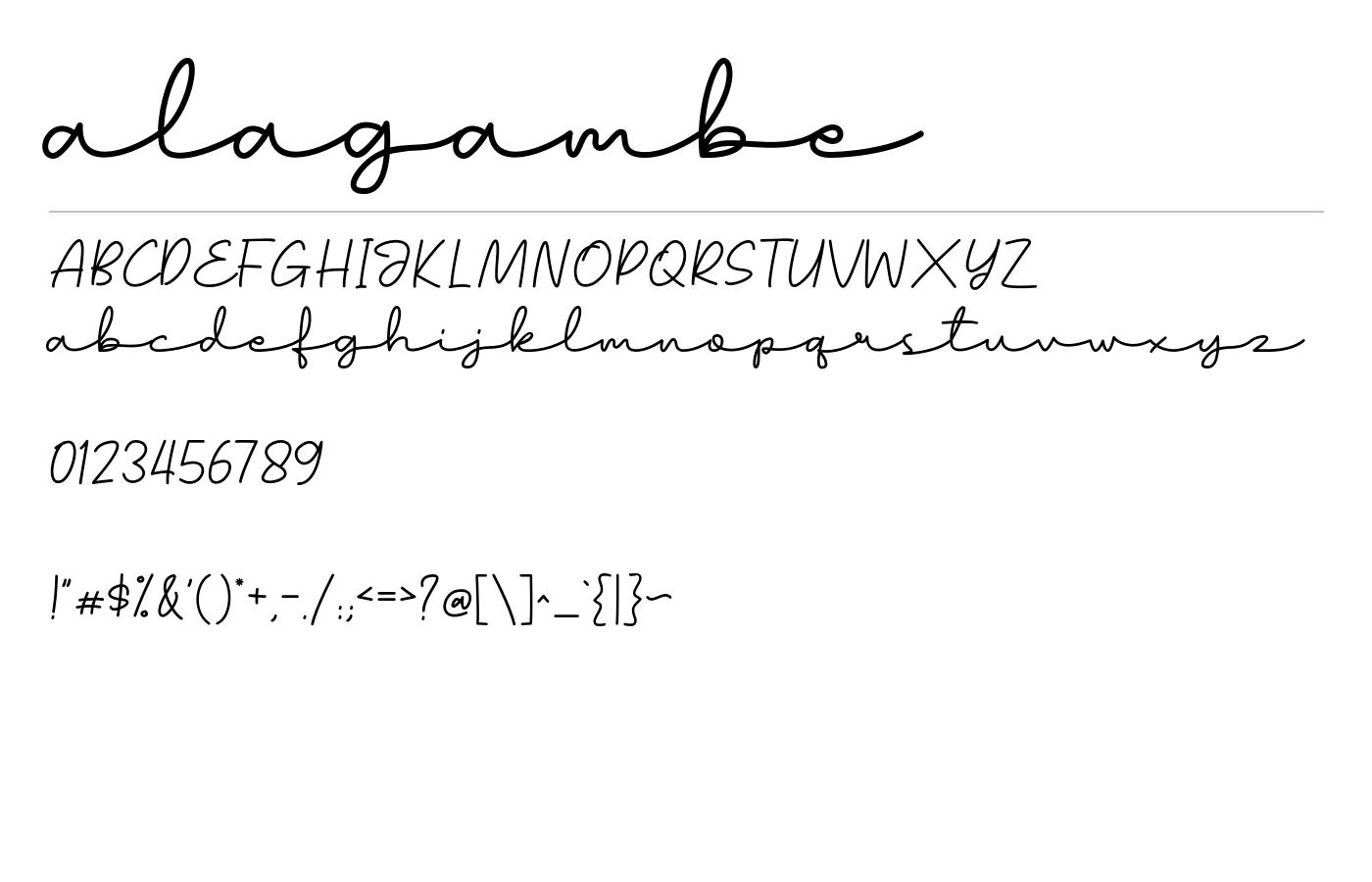
Alagambe is a delicate, handwritten script font characterized by its slender strokes and natural, flowing lines that give it a casual yet refined feel. With its light weight and airy spacing, this font works beautifully for personal branding, invitations, and creative projects that seek a warm, approachable, and slightly whimsical touch. It’s ideal for designs looking to convey friendliness and elegance without sacrificing a relaxed, authentic vibe.
alagambe Font
About alagambe Font
| Font family | alagambe Font |
| Designer | Muhammad ZD Prayogo |